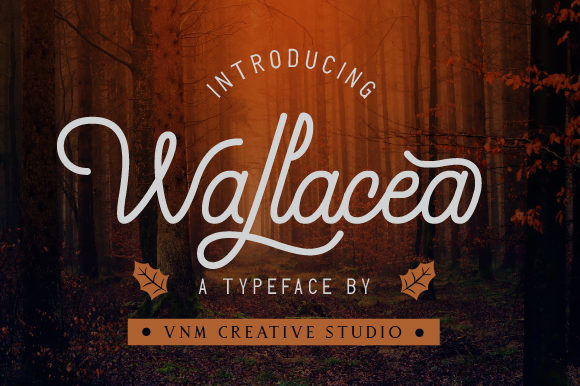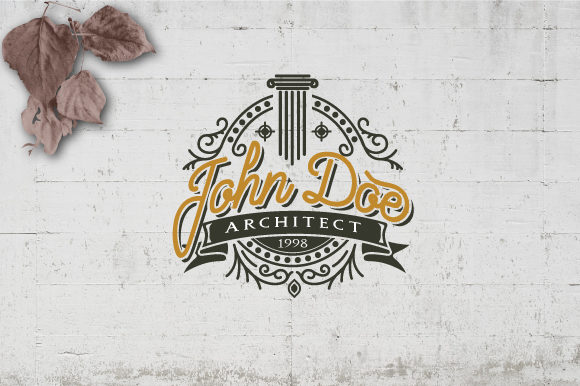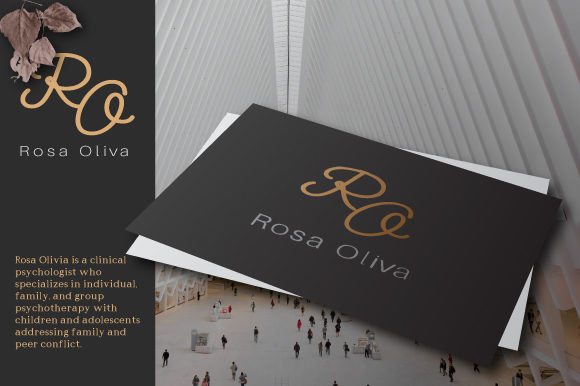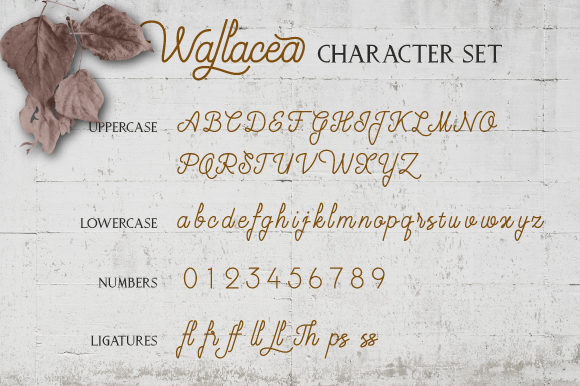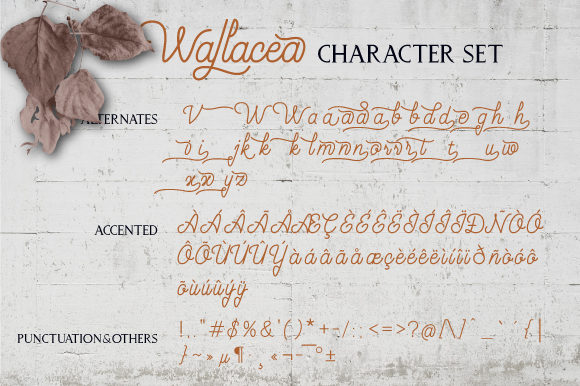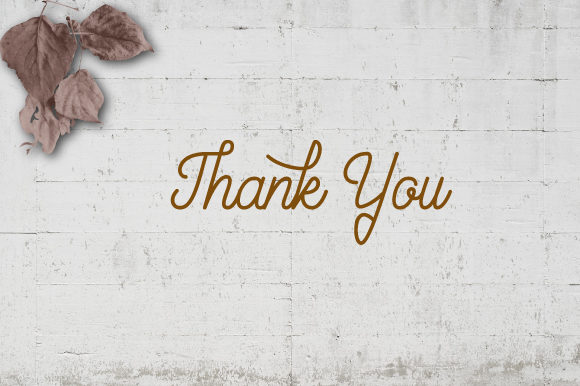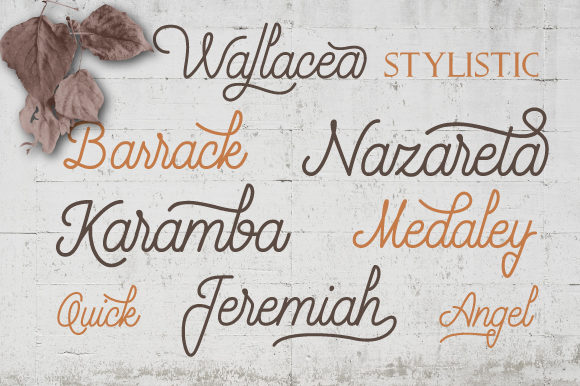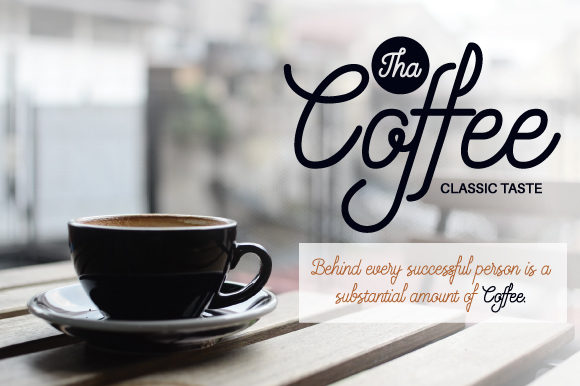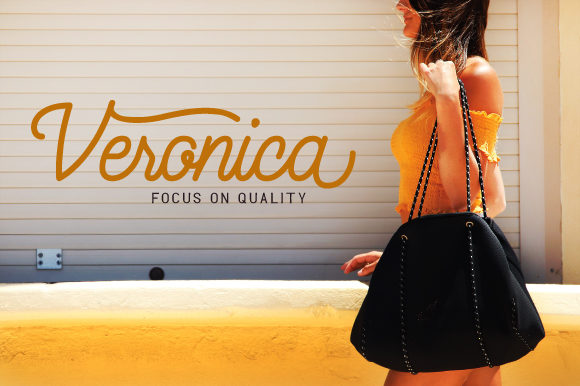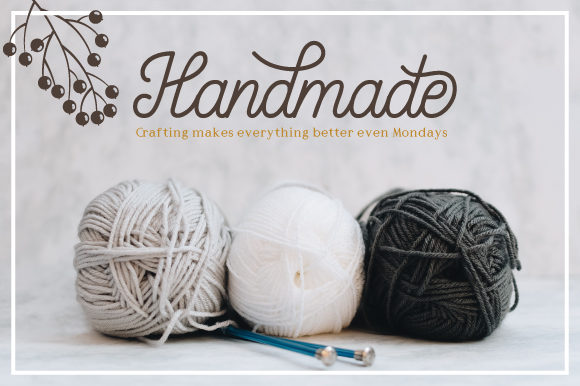
Wallacea Font
About Wallacea Font
Wallacea is a charming and unique handwritten font with a bold feel. Fall in love with its playful and elegant swashes, and use it for any design idea that requires a romantic twist.